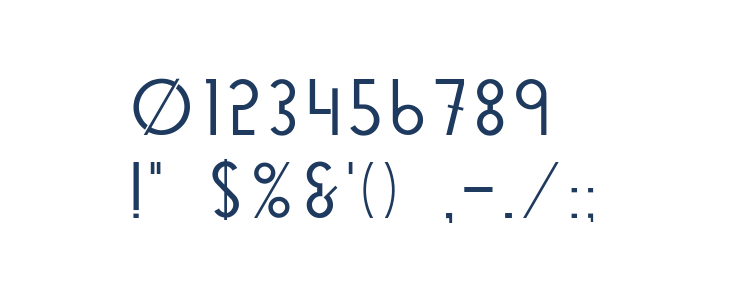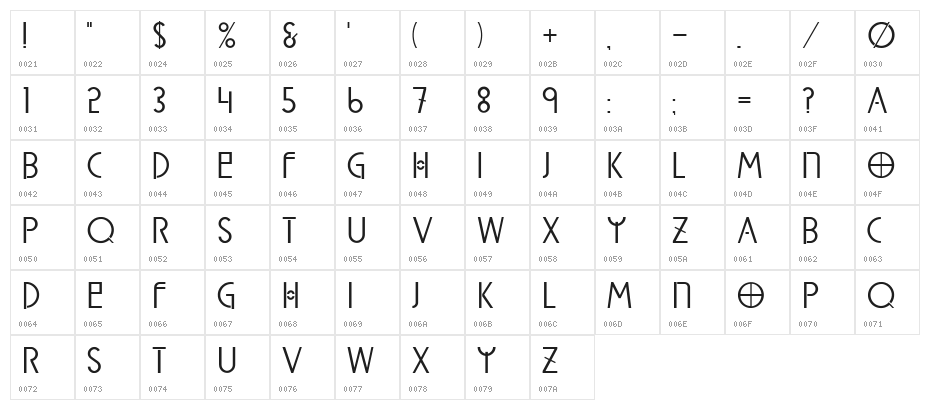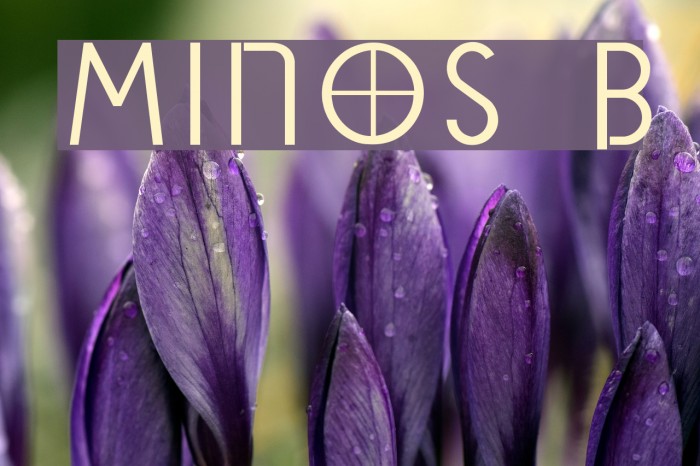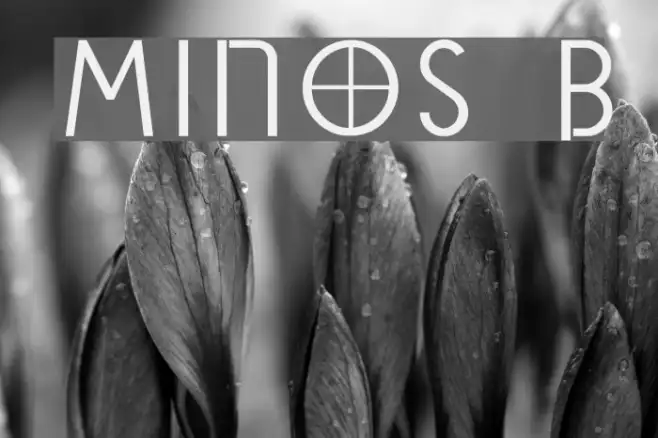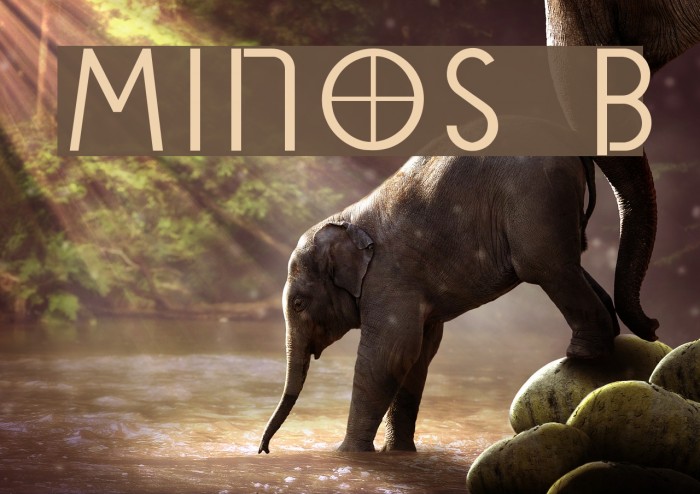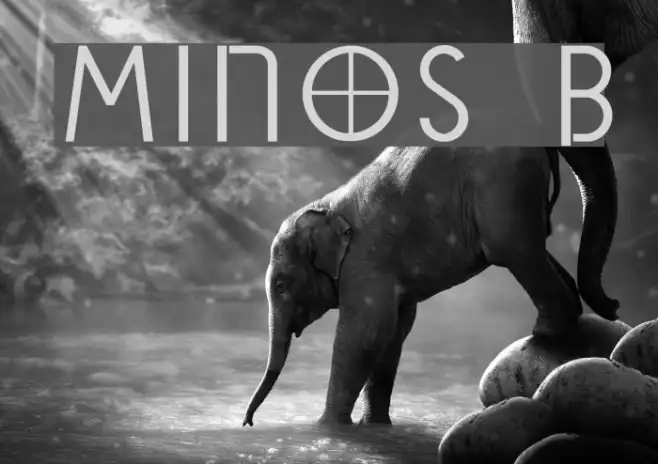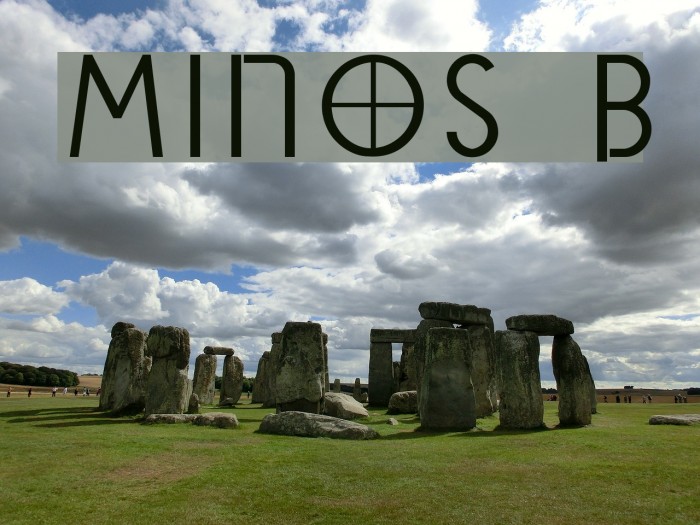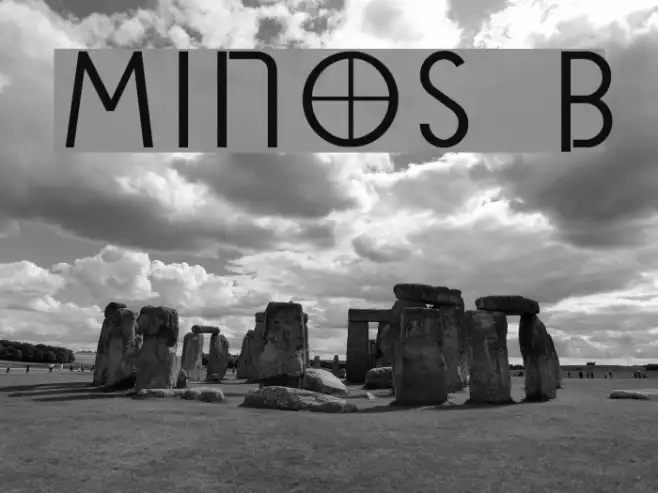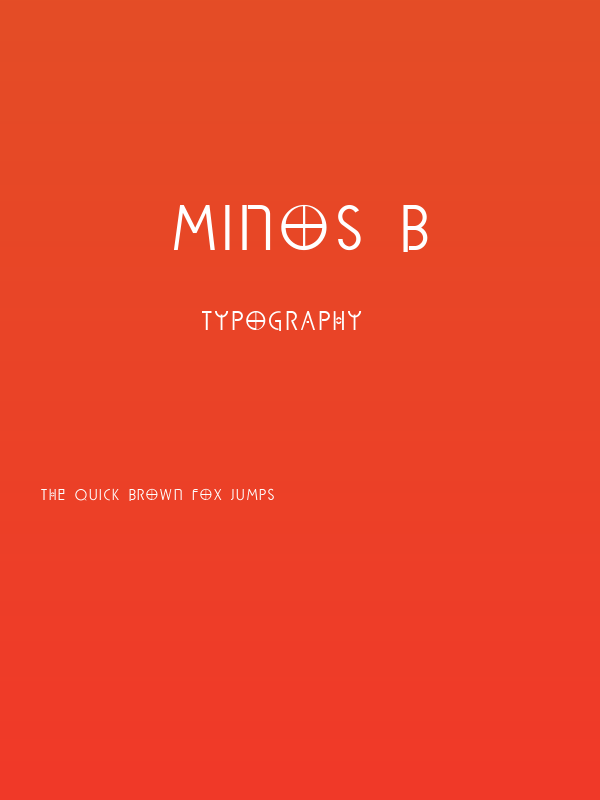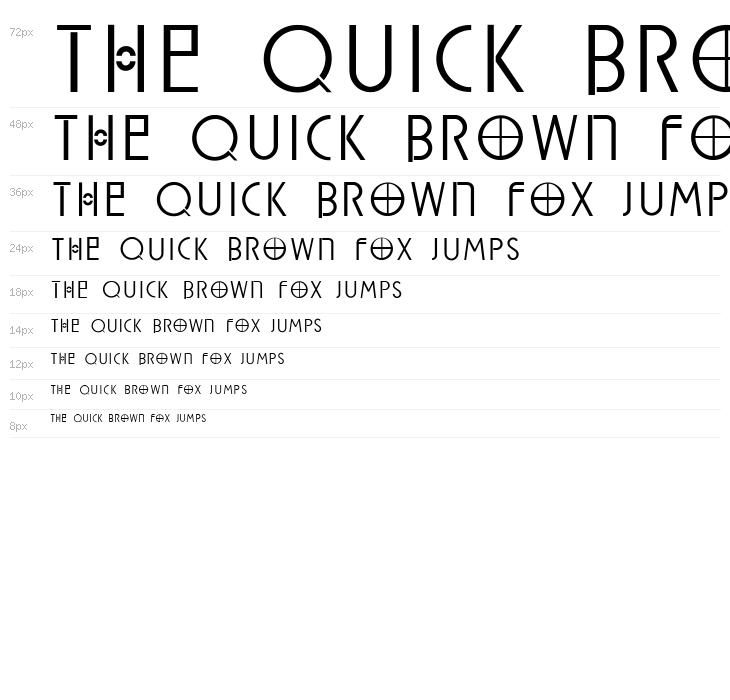
Minos B Font
Minos B Description
This font features a modern and geometric design with clean lines and a distinct futuristic appeal. The uppercase letters are characterized by sharp angles and unique shapes, giving it a bold and innovative look. The lowercase letters maintain a consistent style, complementing the uppercase with a slightly softer touch. Numbers and special characters follow the same geometric theme, ensuring uniformity across all elements. The font's overall aesthetic is sleek and contemporary, making it suitable for a variety of creative applications.